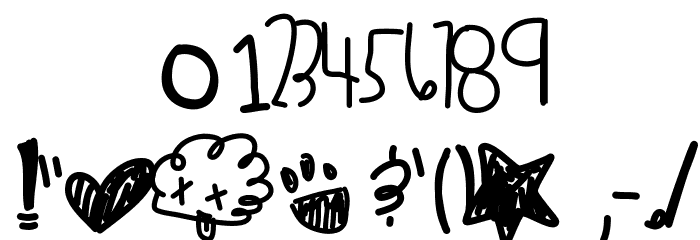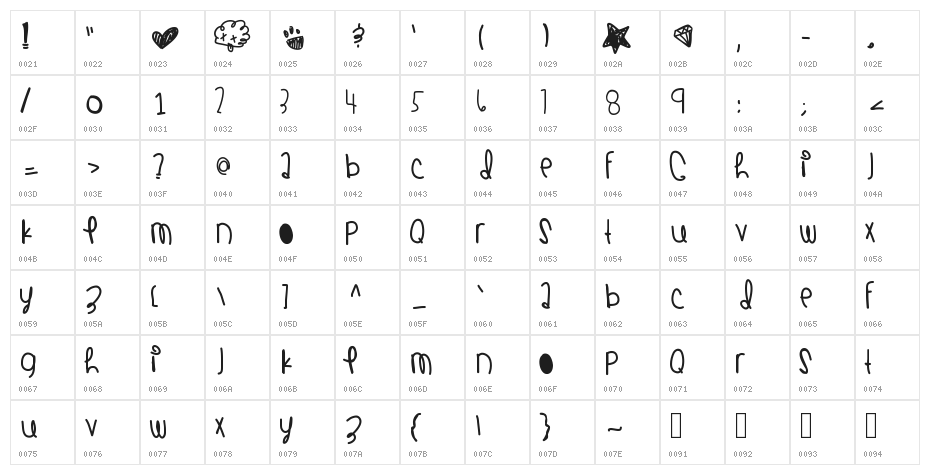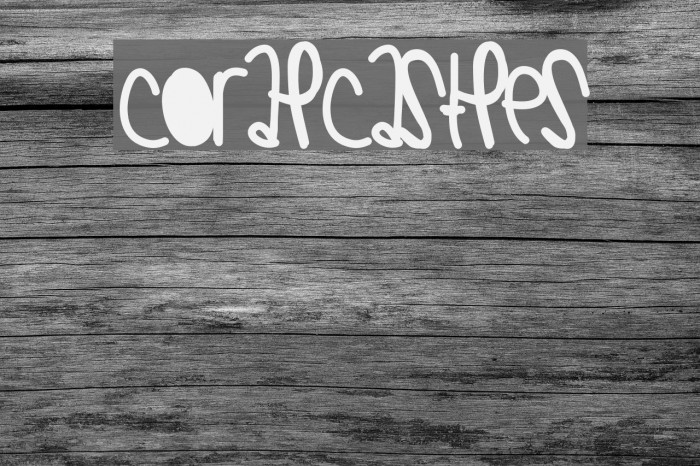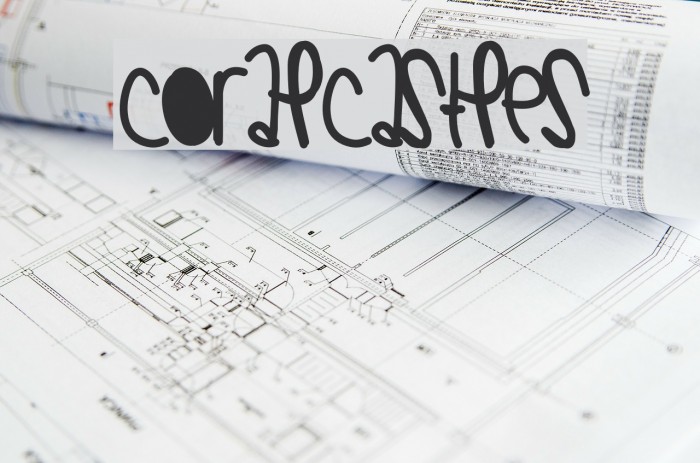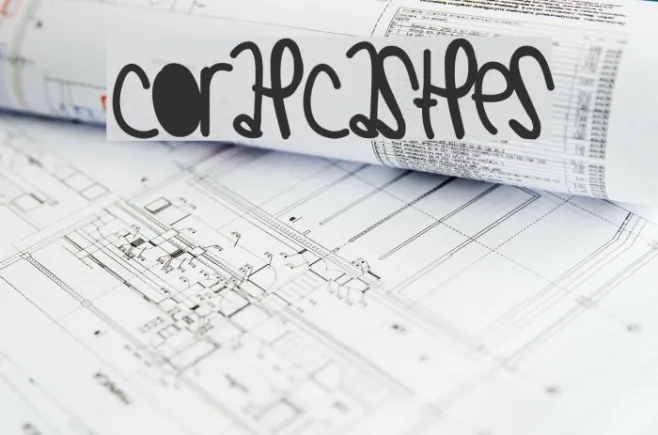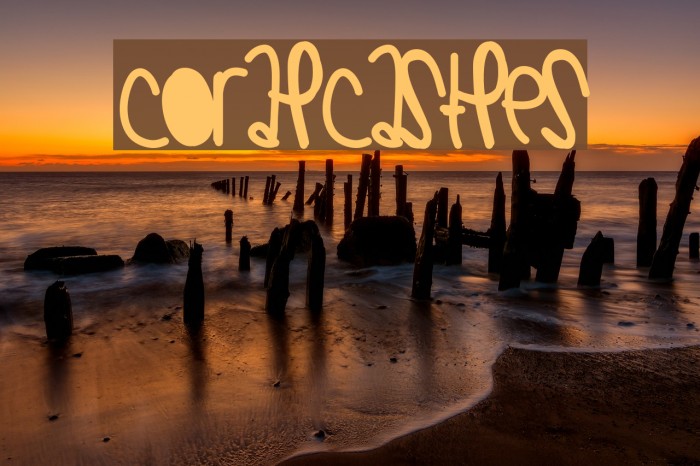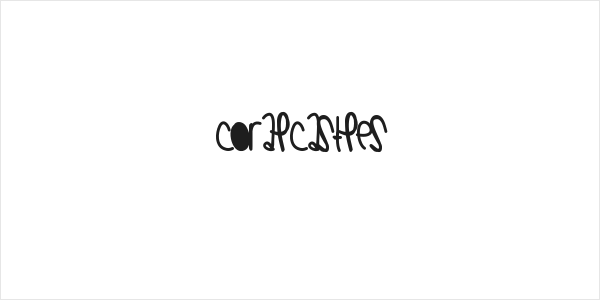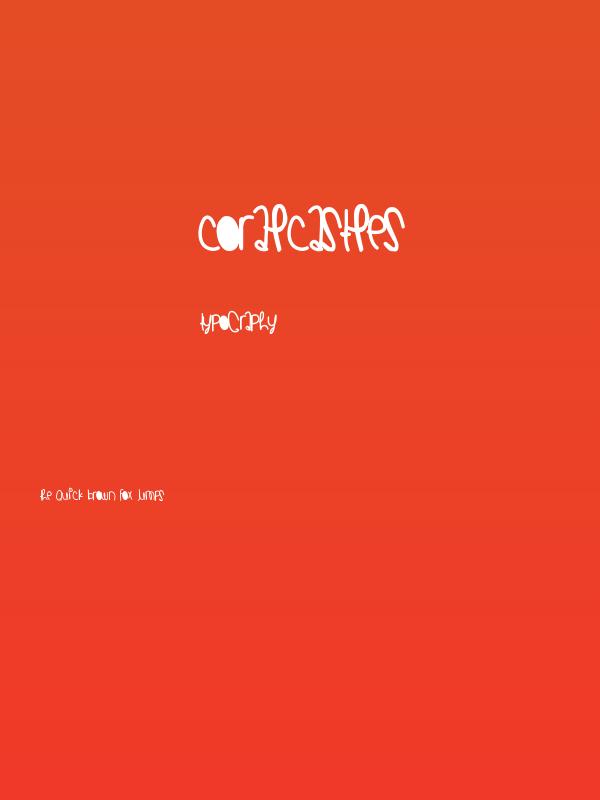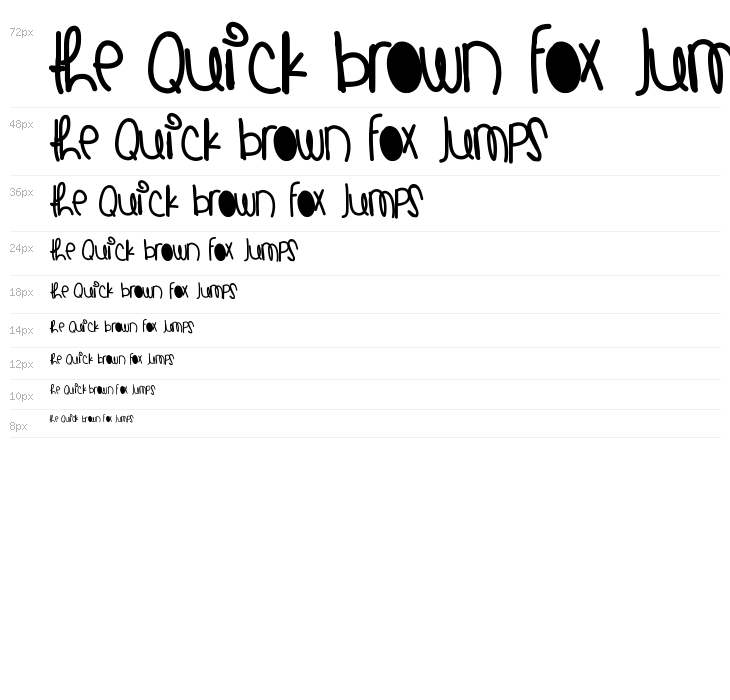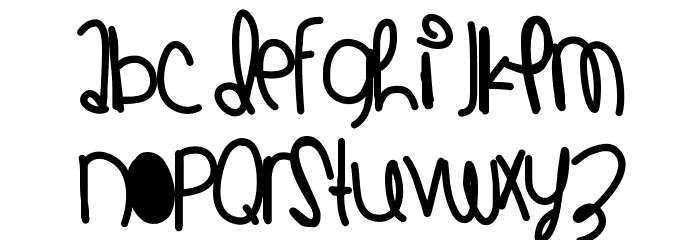
CoralCastles Font
CoralCastles Description
This playful and whimsical font features a handwritten style with a lively and energetic appearance. The characters are rounded and slightly irregular, giving them a casual and friendly feel. The uppercase and lowercase letters are distinct yet harmoniously blend together, while the numbers and special characters maintain the same playful aesthetic. The font's unique charm is enhanced by its bold strokes and slightly condensed width, making it stand out in any design. Its informal style is perfect for projects that require a touch of creativity and fun.
| Proposed Projects | Ideal for children's books, greeting cards, playful branding, and creative posters. |